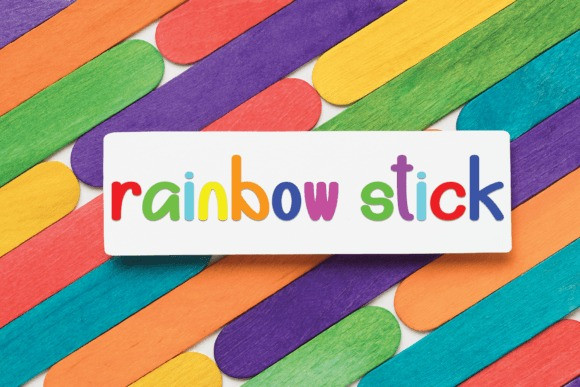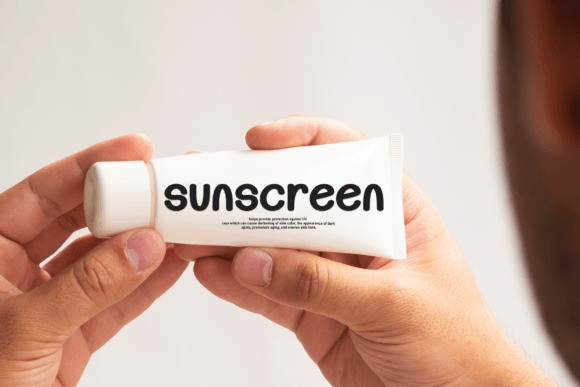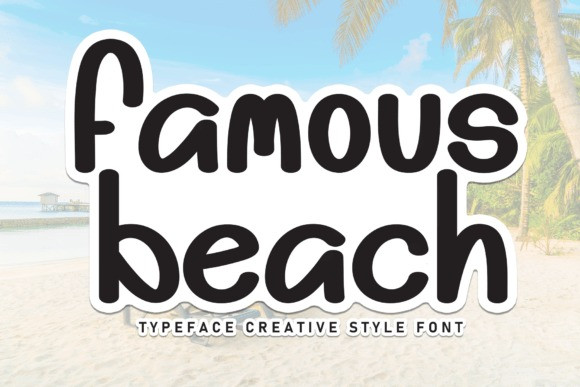
Famous Beach Font
Famous Beach Font is a sweet and friendly handwritten display font. Cute and fun, this font is ideal for writing wedding invitations, cards, or any other design that might need a fun touch!